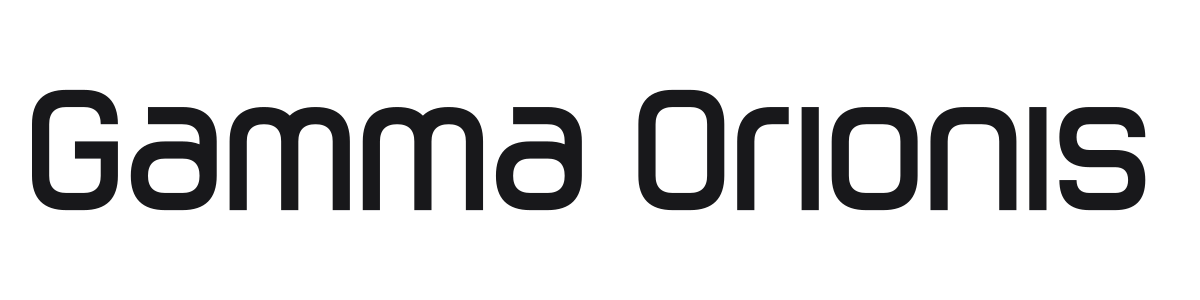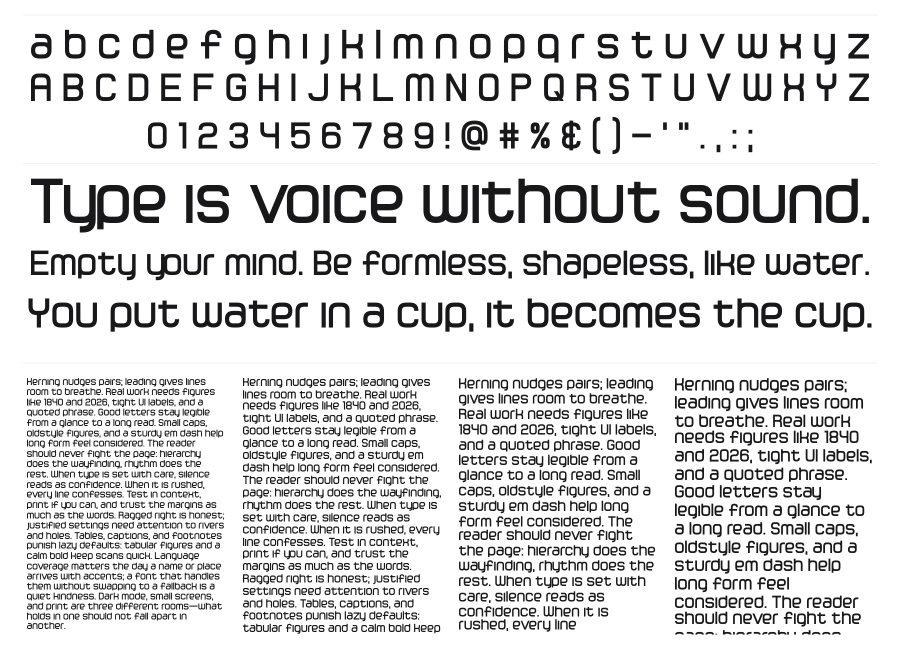
Gamma Orionis
Gamma Orionis is a clean geometric sans with softly rounded terminals and near-monoweight strokes. The circular bowls and open apertures give it a modern, slightly futuristic warmth that avoids feeling sterile. It works well in logos, app interfaces, and anywhere a contemporary geometric sans is needed without the rigidity of a strict grid-based design.